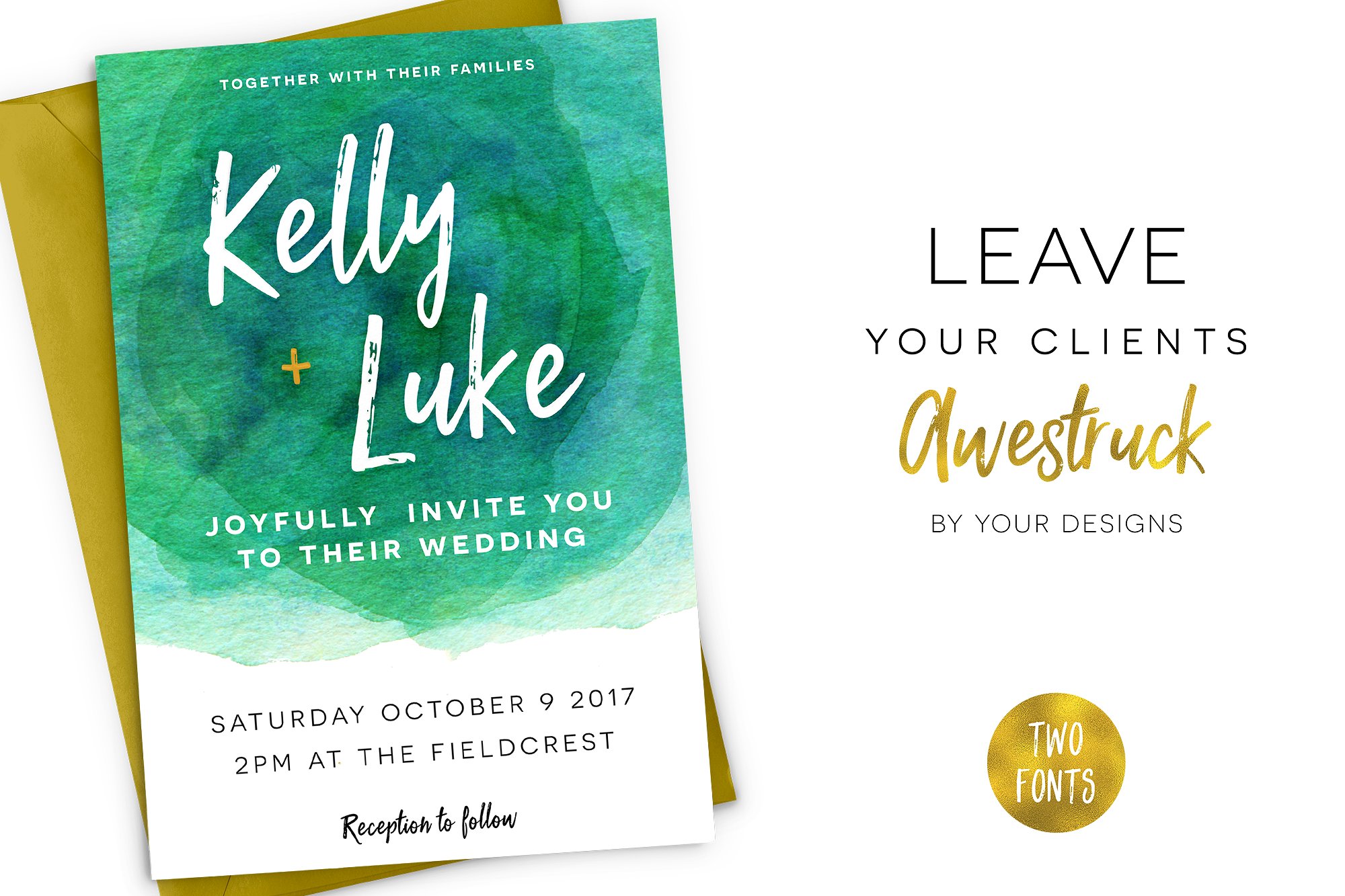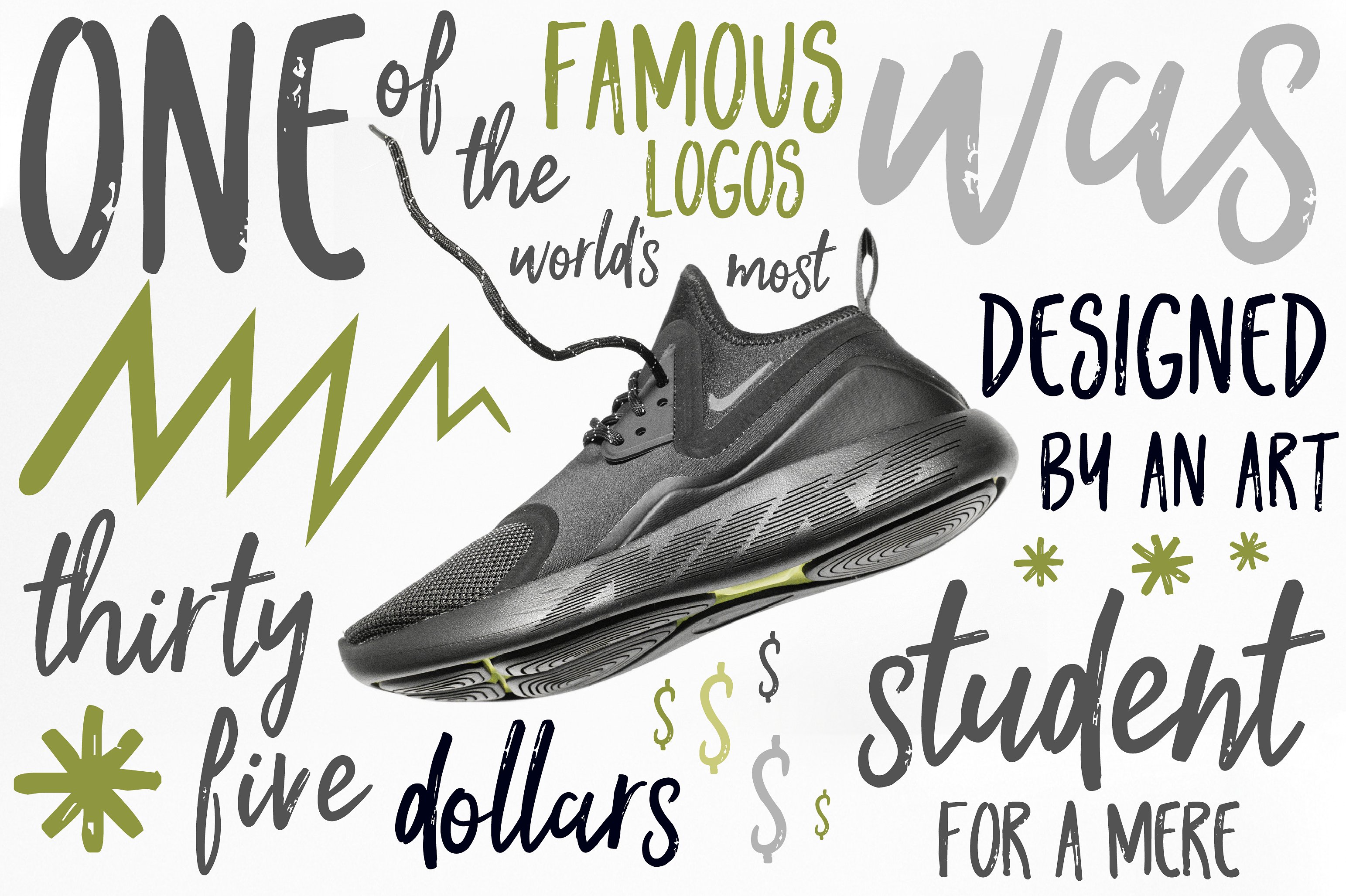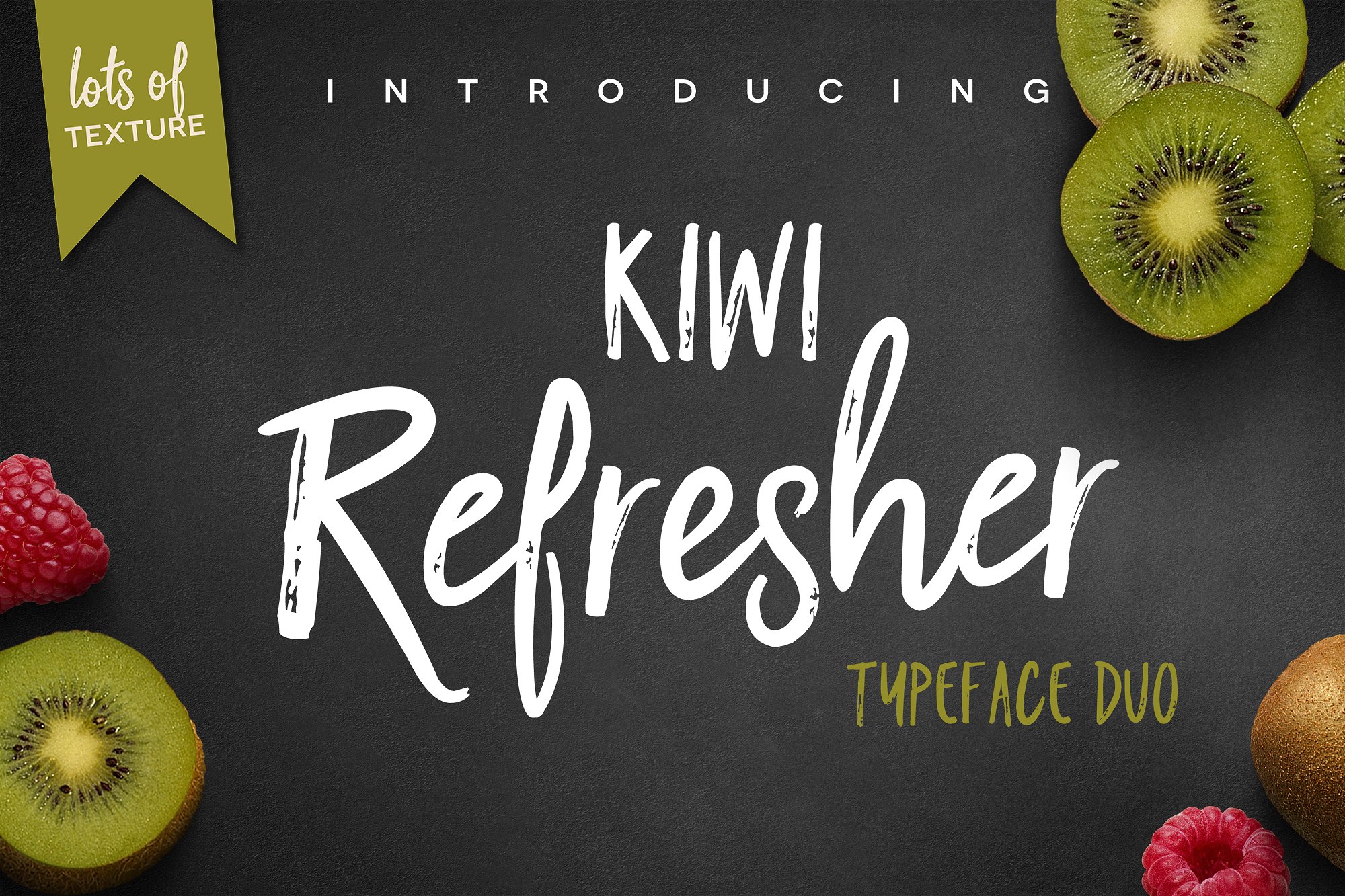
Kiwi Refresher Font
Kiwi Refresher Font Duo
Kiwi Refresher is a fun loving font duo that couples an off-the-cuff script with an all-caps sans serif! It’s marker brush strokes give it a gritty and eye popping aesthetic perfect for prints, greeting cards, typography quotes, branding, and more!